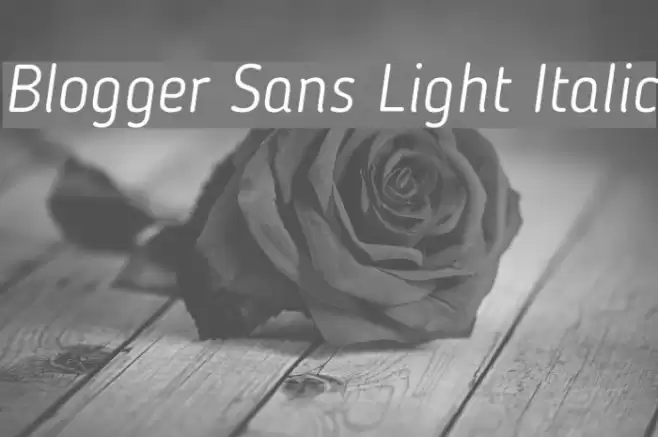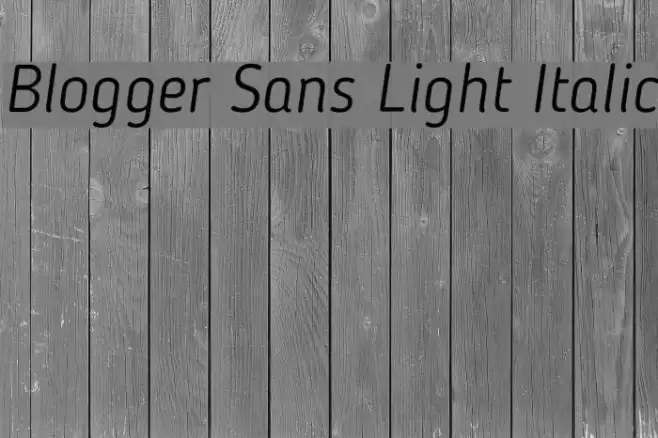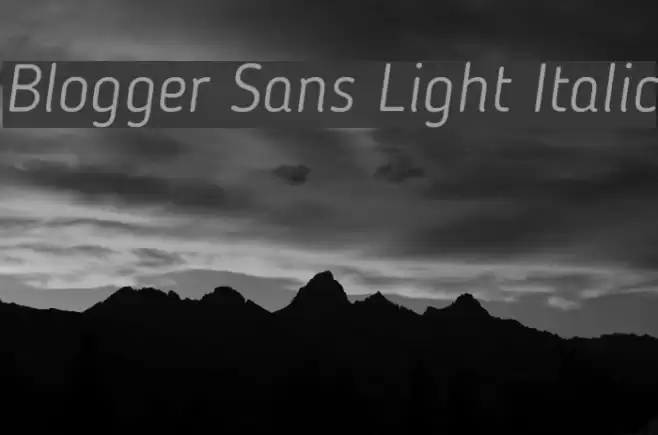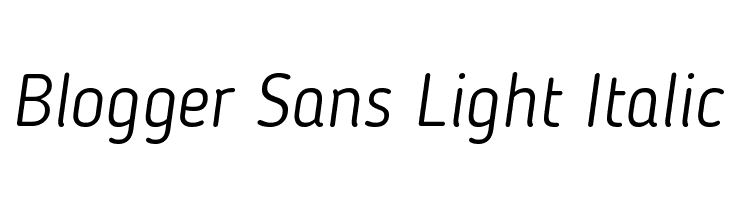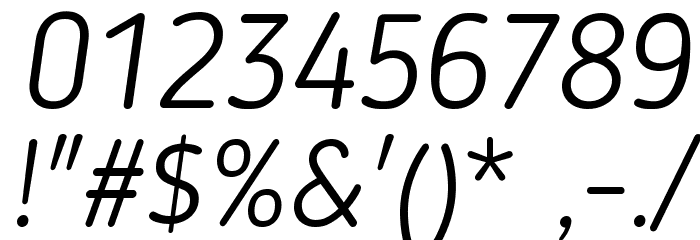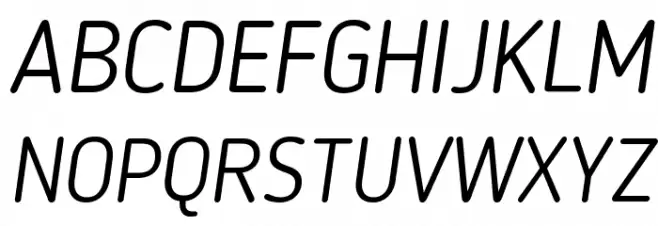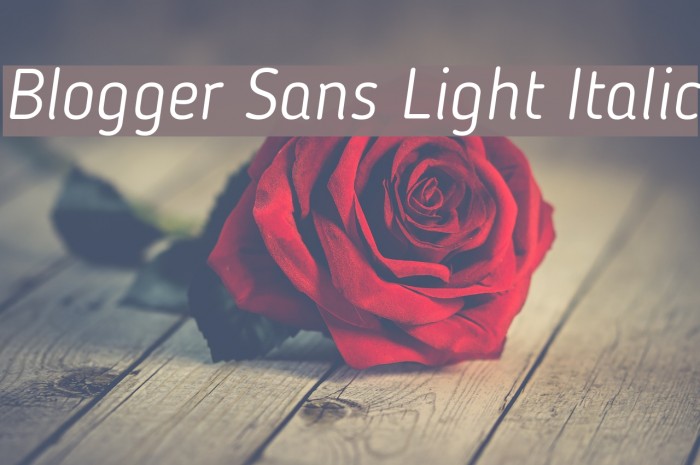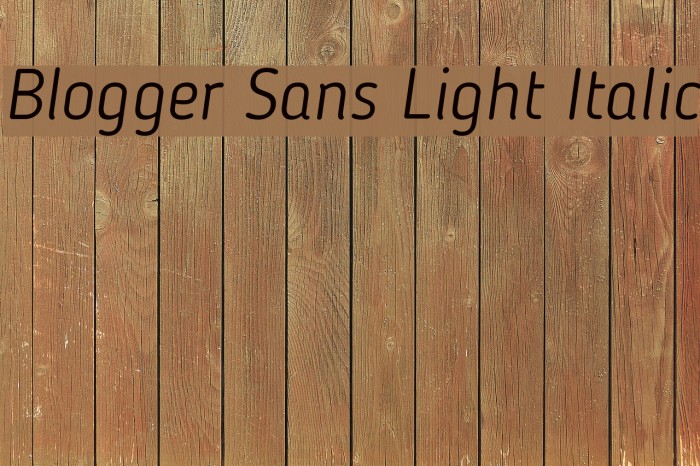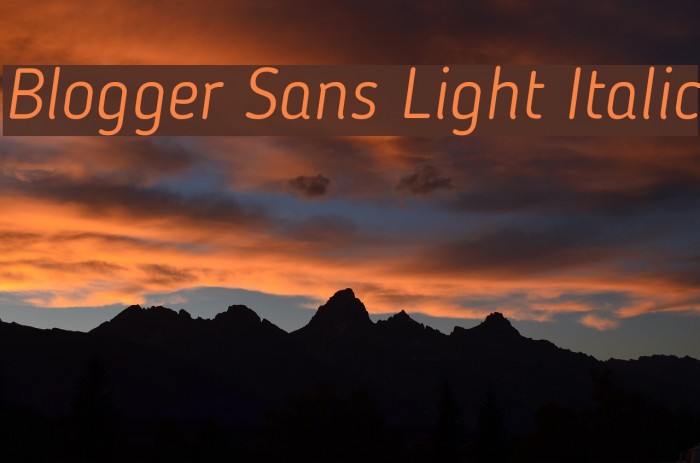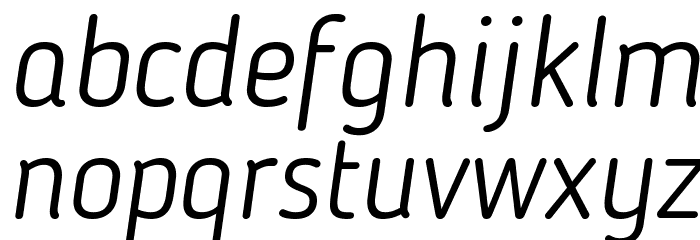
Blogger Sans Light Italic Font
Blogger Sans Light Italic Description
This typeface features a sleek and modern design with a light weight and italic style. The characters are slightly slanted, giving a dynamic and fluid appearance. The sans-serif structure ensures clarity and readability, with smooth curves and clean lines. The font maintains a consistent stroke width, contributing to its elegant and understated look. The numerals and special characters are designed to match the overall aesthetic, ensuring uniformity across all text elements. This font is versatile, suitable for both digital and print media, and can enhance the visual appeal of various design projects.
A sleek, modern, light italic sans-serif typeface with smooth curves from Uncategorized fonts.
- Proposed Projects: Ideal for digital content, modern branding, editorial design, and user interfaces.